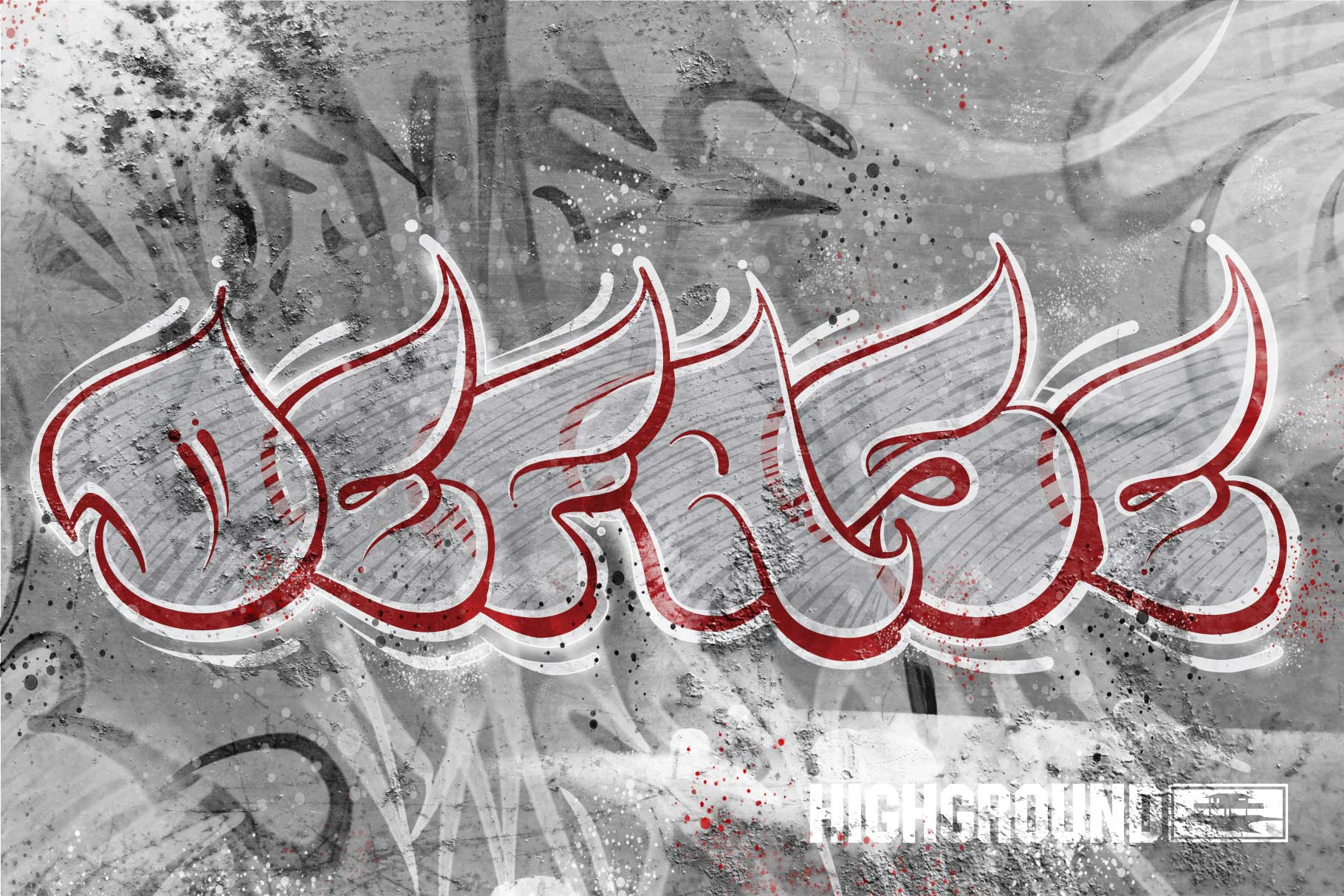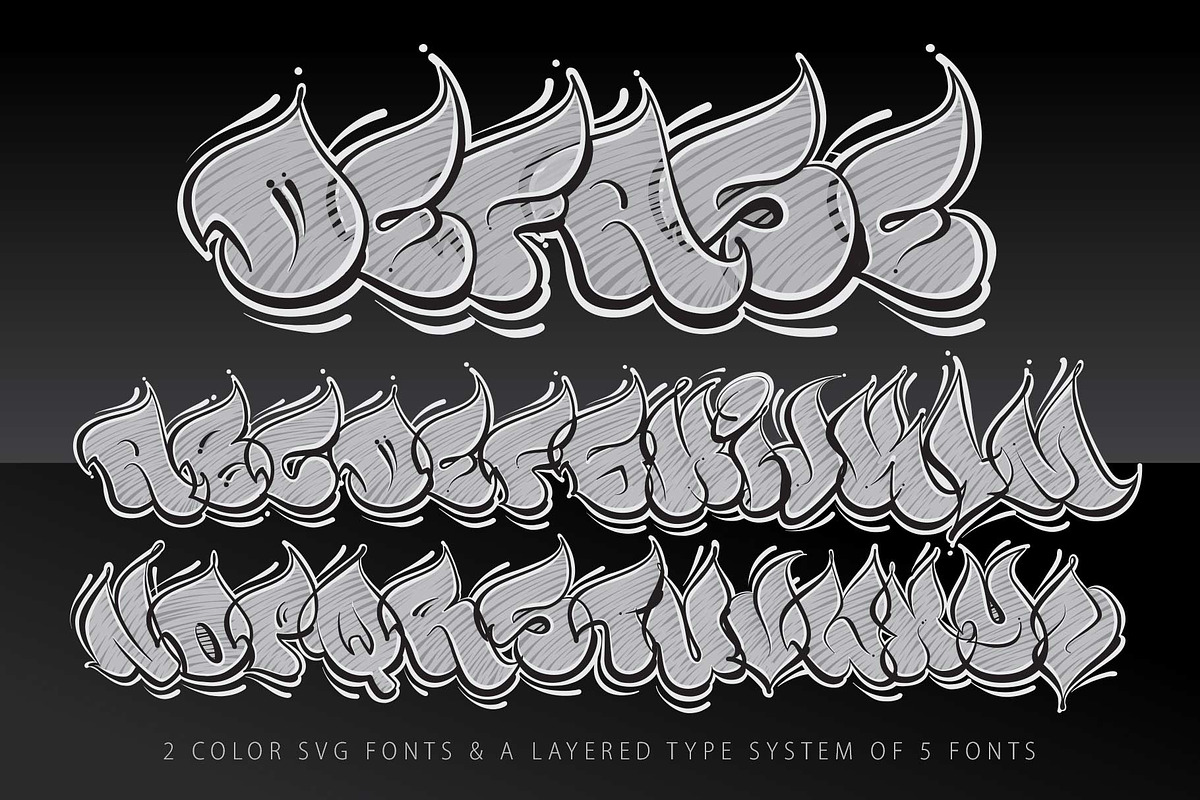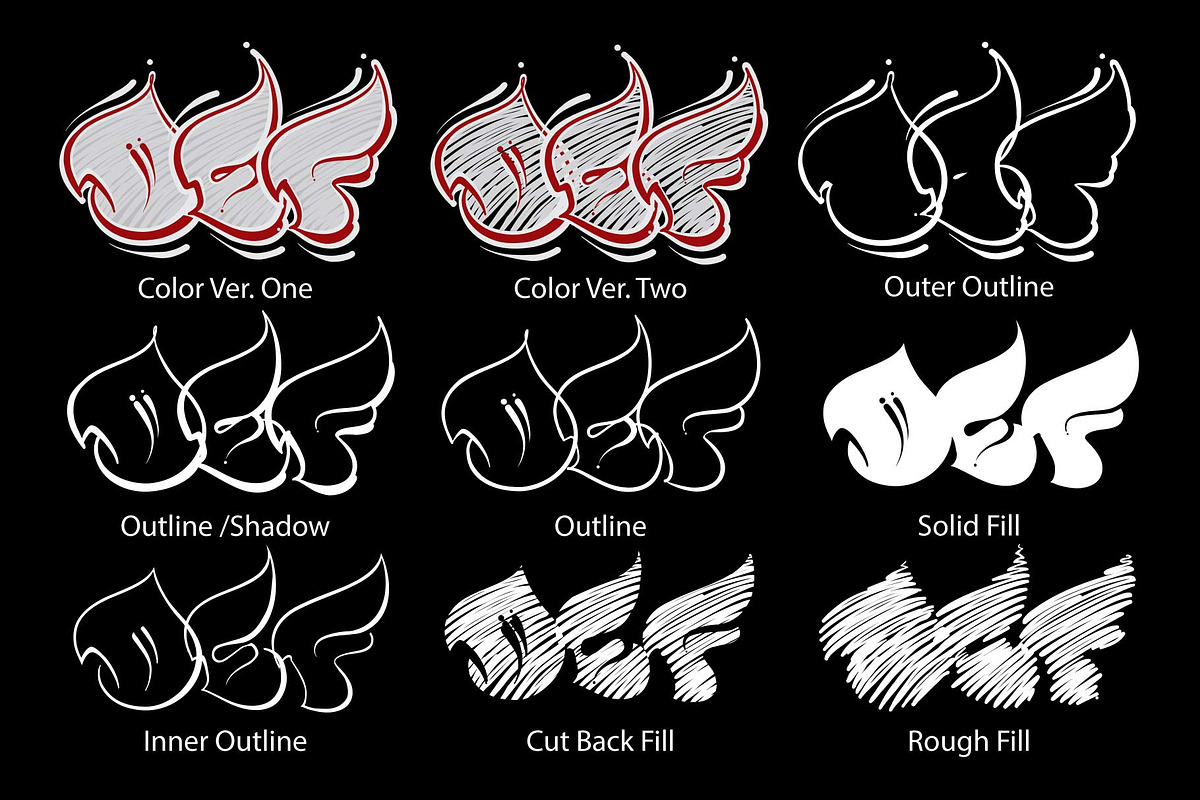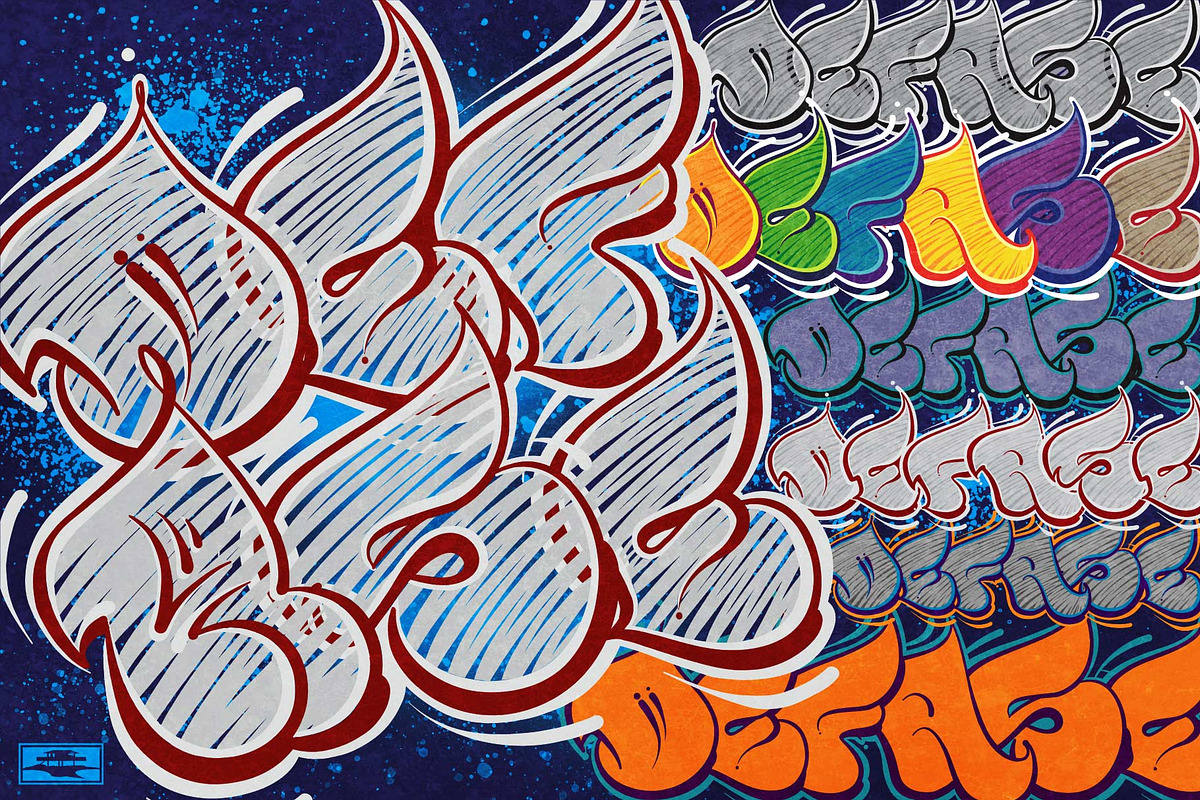
Graffiti Fonts | Defase Font Family
This throwie style font family includes a total of seven individual typefaces. There are two full-color, SVG fonts that work independently and there's a set of five stackable typefaces: Solid Fill, Rough Fill, Outline, Inner Outline & Outer Outline, which can be layered & combined any way you like.